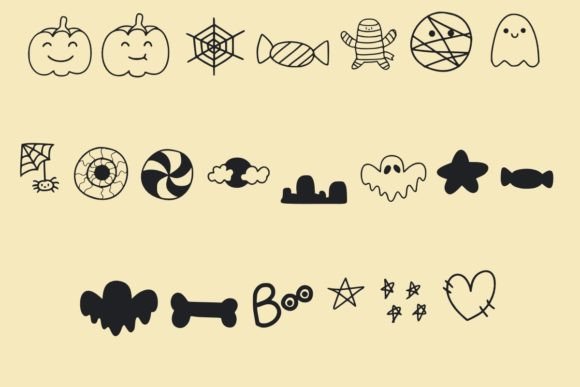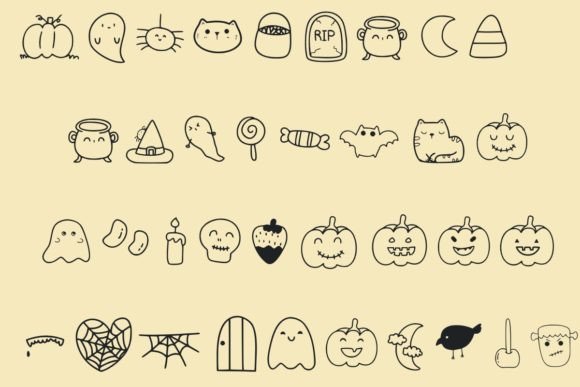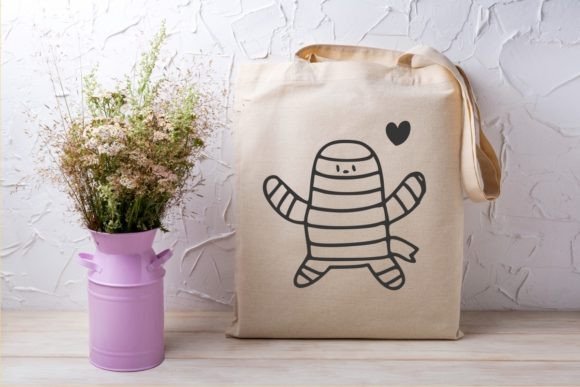
Unleash the Spooky Spirit: A Comprehensive Guide to Halloween Font
Halloween is just around the corner, and what better way to get into the spooky spirit than with a font that’s as eerie as it is fun? Look no further than the Halloween Font, a delightful dingbats font that’s packed with creepy-cute icons to make your creations stand out. In this article, we’ll dive into the world of Halloween Font, exploring its features, uses, and benefits for designers and crafters alike.
What is Halloween Font?
Halloween Font is a unique dingbats font that features a wide range of Halloween-themed icons, including ghosts, pumpkins, cats, cauldrons, spider webs, and more. This font is designed to add a touch of spookiness to your projects, making it perfect for Halloween-related designs, from party invitations to social media graphics.
Key Features of Halloween Font
• Wide range of icons: Halloween Font boasts an impressive collection of Halloween-themed icons, ensuring that you’ll find the perfect symbol to complement your design.
• Scalable: Halloween Font is scalable, allowing you to use it for a variety of projects, from small icons to large banners.
• Fun and spooky: The font’s playful and eerie vibe is sure to add a touch of Halloween magic to your creations.
Uses for Halloween Font
Halloween Font is an incredibly versatile font that can be used in a wide range of projects, including:
• Party invitations: Create spooky and fun party invitations that set the tone for a howling good time.
• Social media graphics: Add a touch of Halloween flair to your social media graphics, from Facebook posts to Instagram stories.
• Crafting projects: Use Halloween Font to create custom signs, banners, and decorations for your Halloween-themed crafting projects.
• Web graphics: Add a spooky touch to your website with Halloween Font, perfect for Halloween-themed blog posts or landing pages.
Halloween Font offers a range of benefits for designers and crafters, including:
• Time-saving: With Halloween Font, you can quickly and easily add Halloween-themed icons to your designs, saving you time and effort.
• Increased creativity: The font’s wide range of icons and playful vibe can help spark your creativity, ensuring that your designs stand out from the crowd.
• Professional-looking results: Halloween Font is designed to produce professional-looking results, making it perfect for designers and crafters who want to create high-quality projects.
Tips for Using Halloween Font
To get the most out of Halloween Font, here are a few tips to keep in mind:
• Experiment with different sizes and colors: Don’t be afraid to try out different sizes and colors to find the perfect combination for your project.
• Combine with other fonts: Halloween Font pairs well with a range of other fonts, so feel free to experiment with different combinations.
• Use it sparingly: While Halloween Font is fun and playful, it’s best used sparingly to avoid overwhelming your design.
Halloween Font is a fantastic addition to any designer’s or crafter’s toolkit, offering a fun and spooky way to add Halloween flair to your projects. With its wide range of icons, ease of use, and scalability, this font is perfect for a variety of Halloween-related designs. So why not give it a try and unleash the spooky spirit in your creations?
Whether you’re a seasoned designer or a crafter looking for a new way to add some personality to your projects, Halloween Font is sure to delight. So go ahead, get creative, and have a howling good time with Halloween Font!